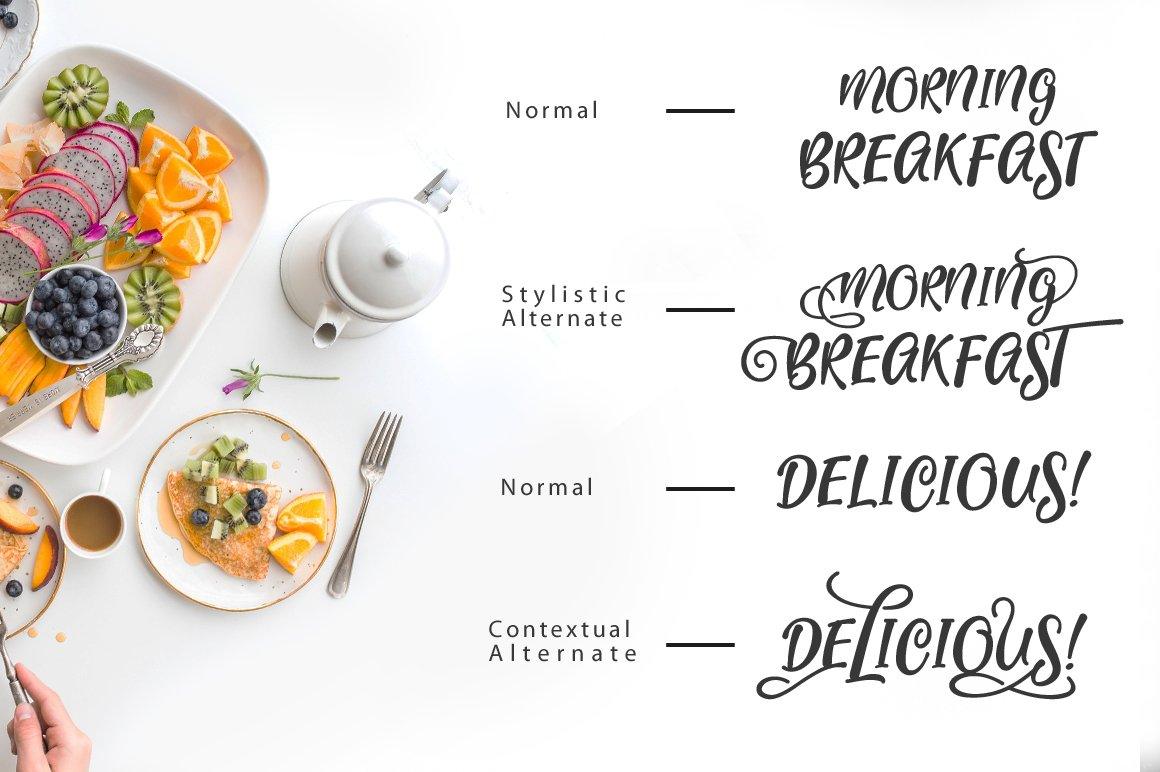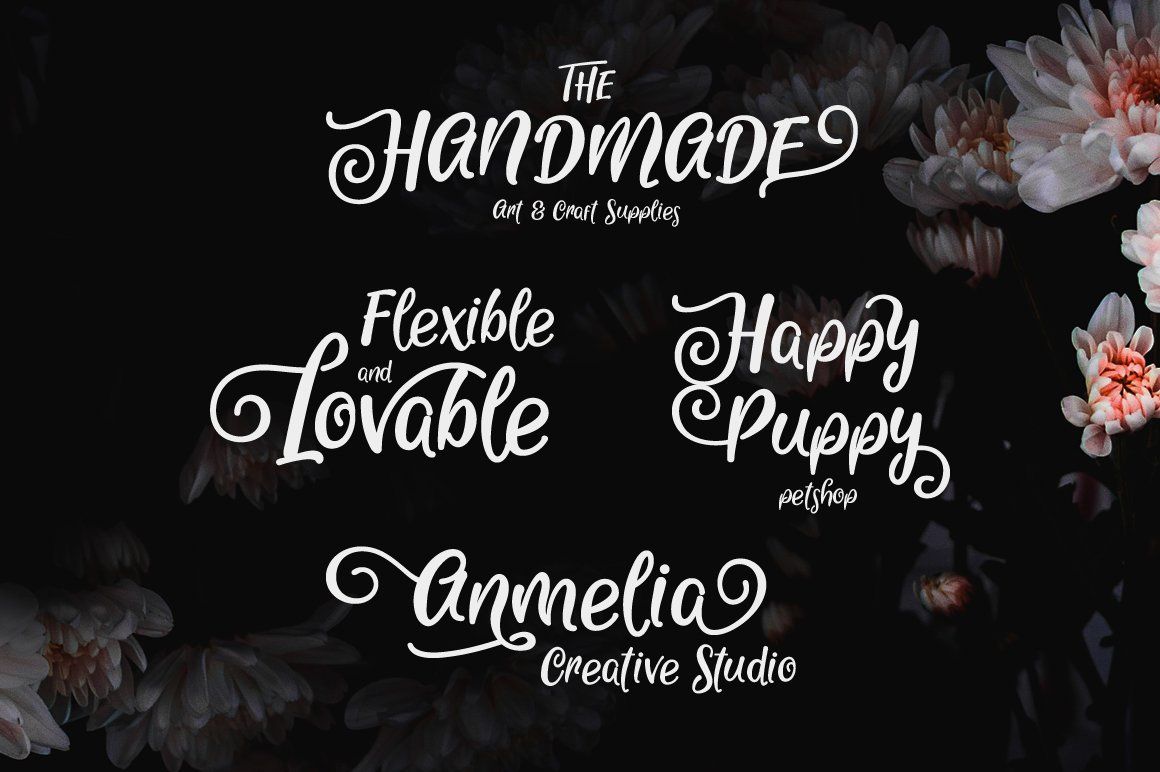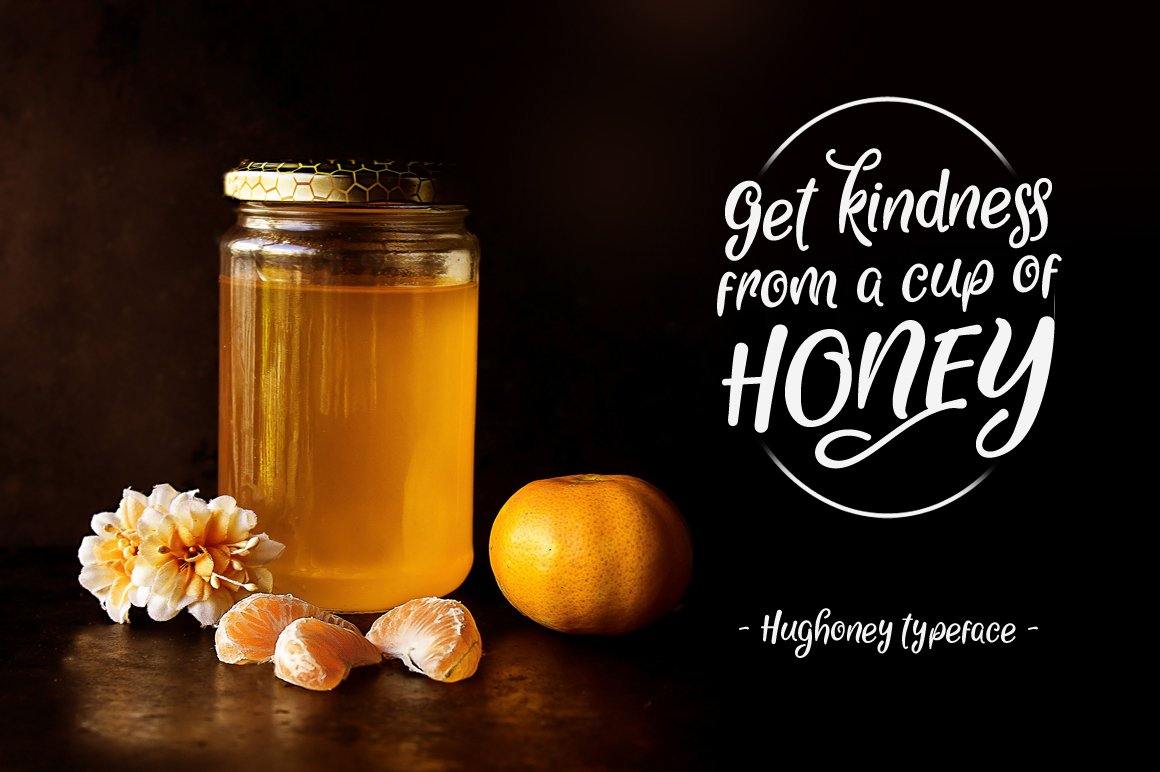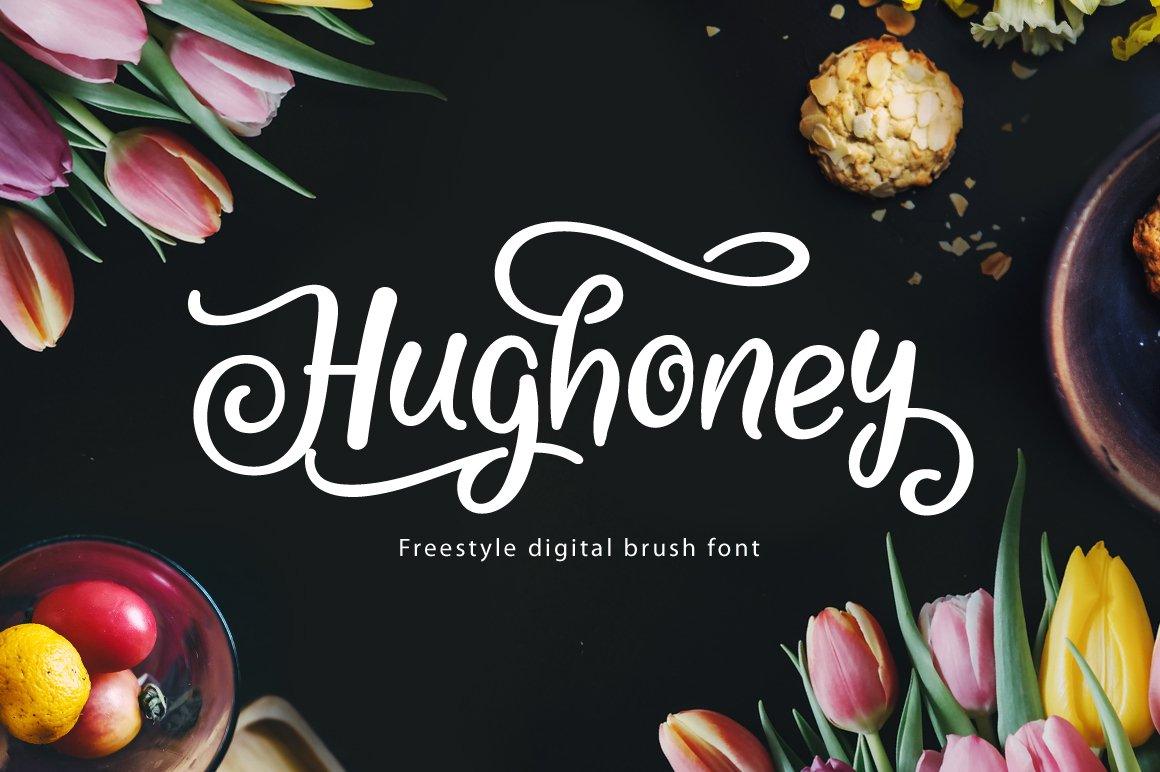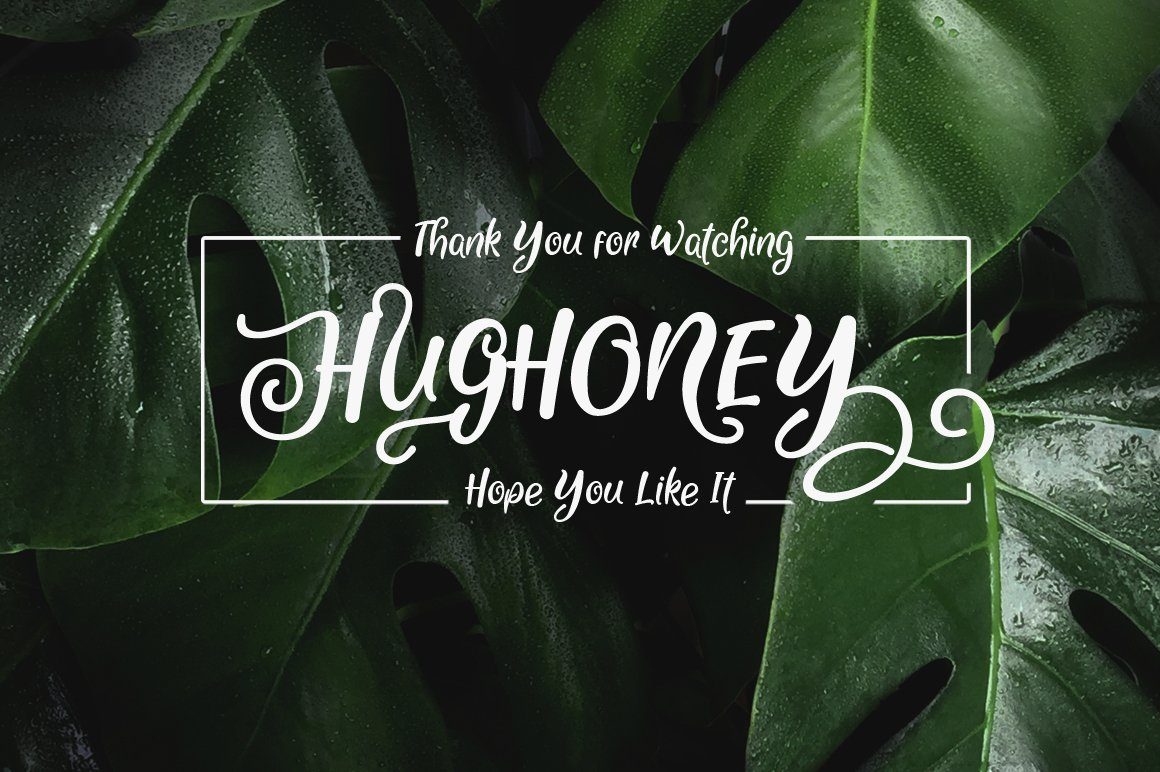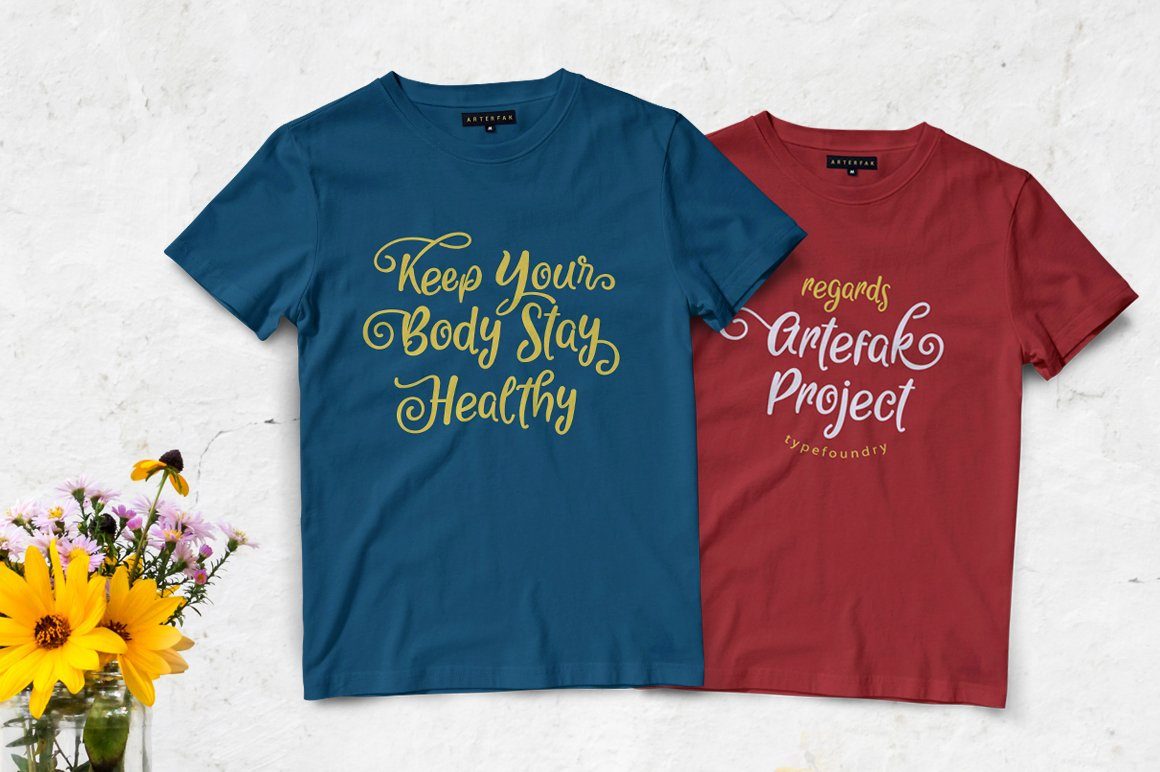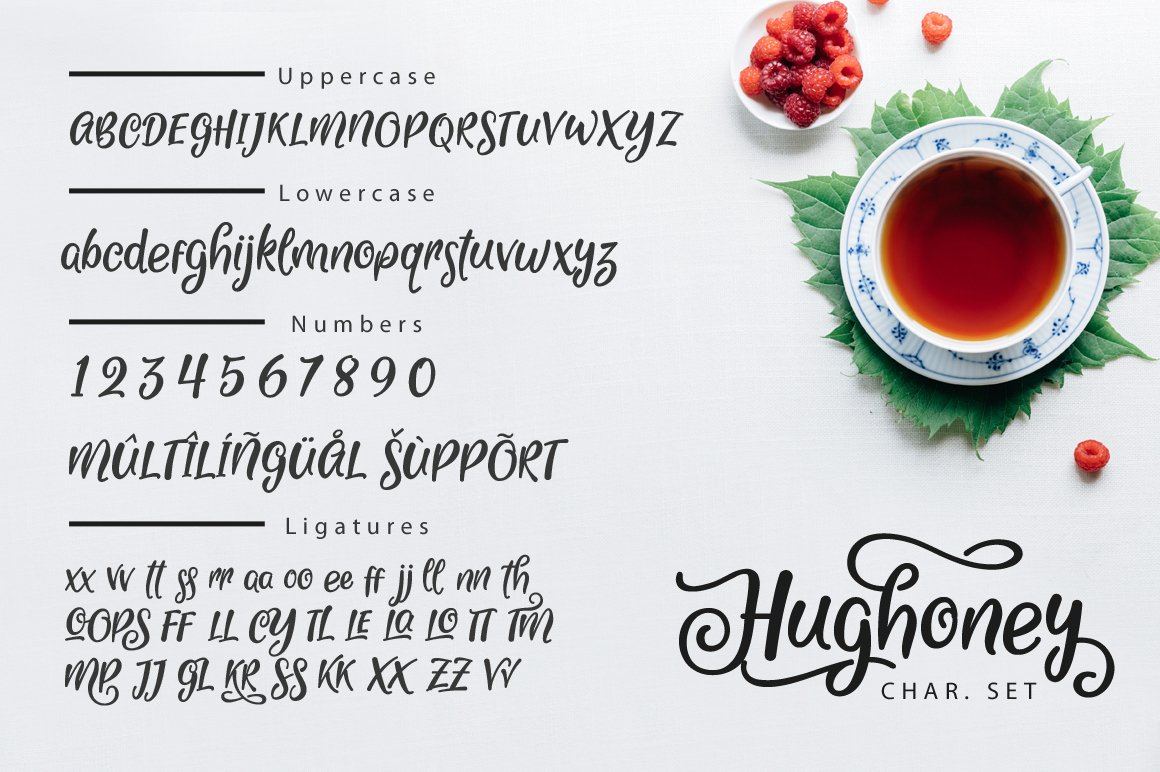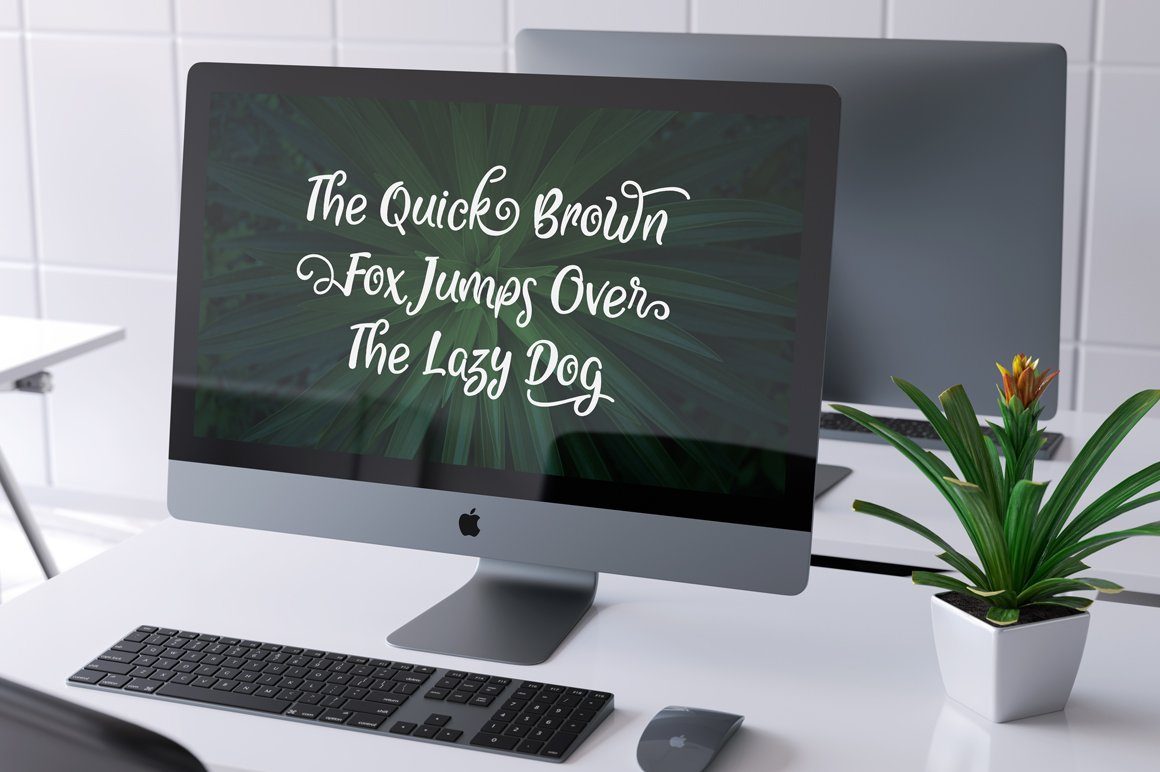
Hughoney Script
About Hughoney Script
Hi, introducing our new exploration of a brush font, Hughoney . The freestyle script font made by the creative randomization of the letter shapes. Minimalist, sweet, elegant, and solid looks for your creative projects. This font has a lot of features that you can apply as your needs.